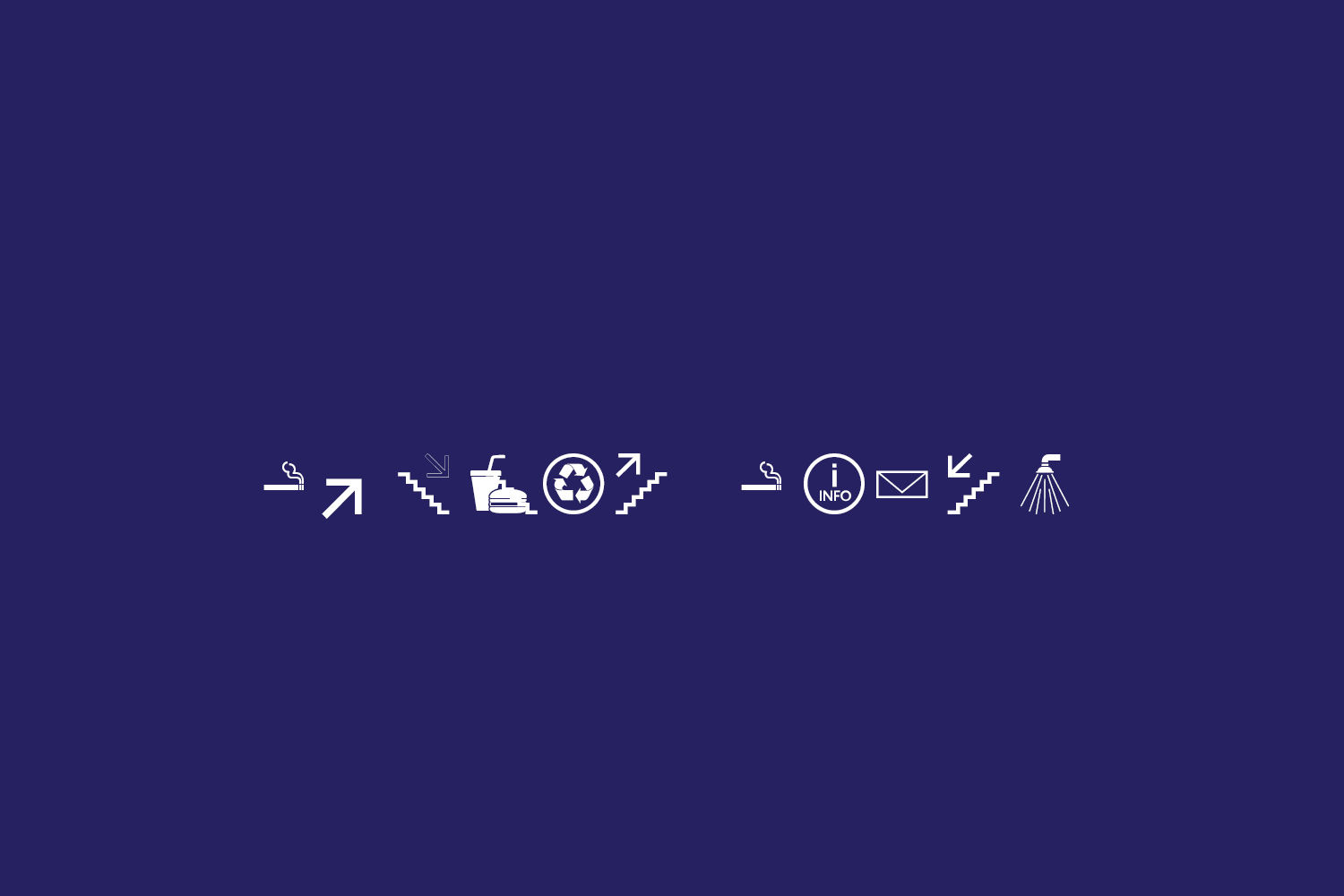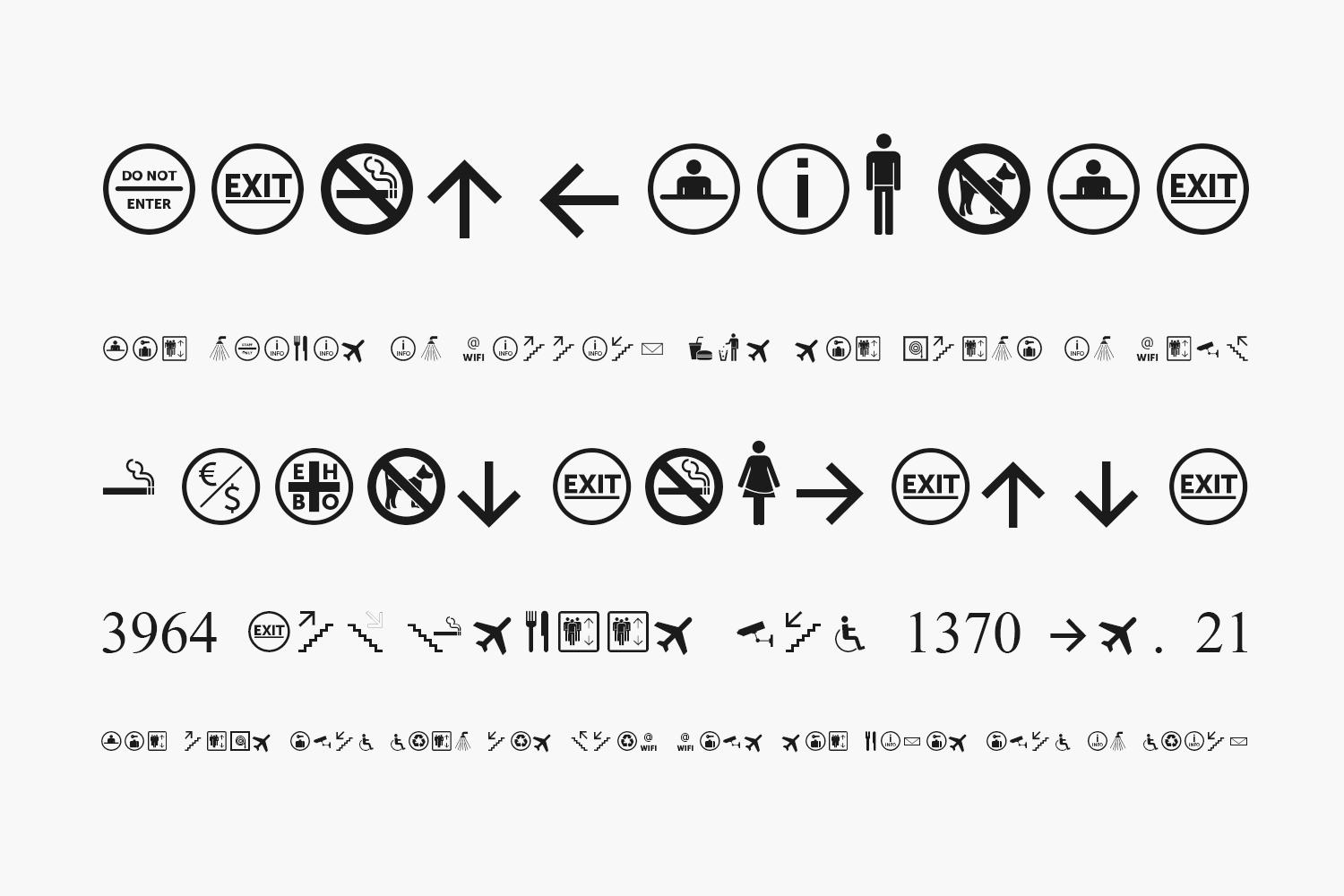
In this free collection I have added common used symbol signs for public services such as Toilets, Telephone, First Aid, Elevator, Information, Restaurant, Coffee Shop, Smoking, Baby, Recycle Icon, Shower, Reception desk, Arrows collection and much, much more.
Symbol Signs Free Font Family can be used for restaurant signage, hotel signage, office wayfinding, airport signage and more. The complete symbol collection is optimized for reproduction methods such as engraving, laser engraving/cutting, screen printing and self adhesive film to manufacture the signs you need.